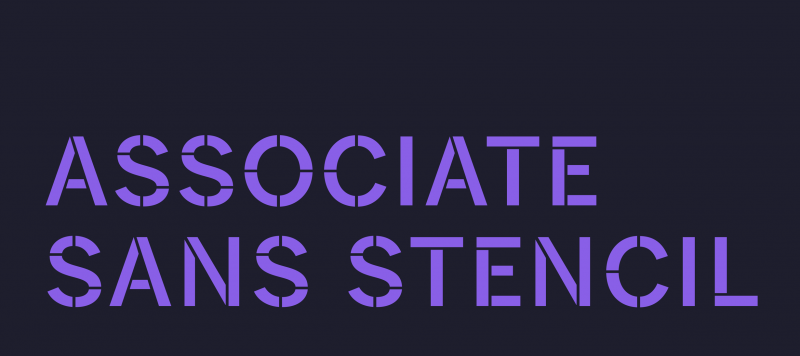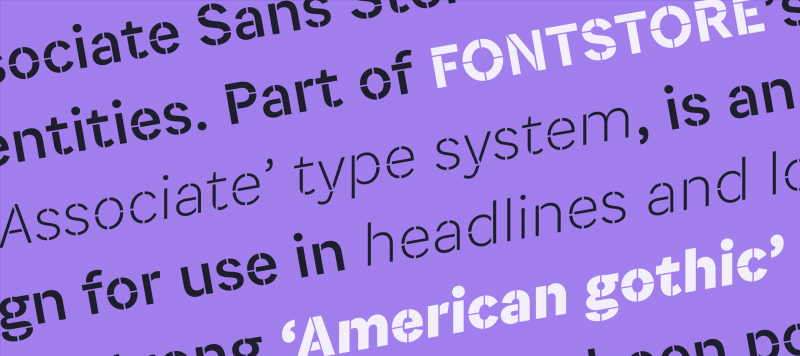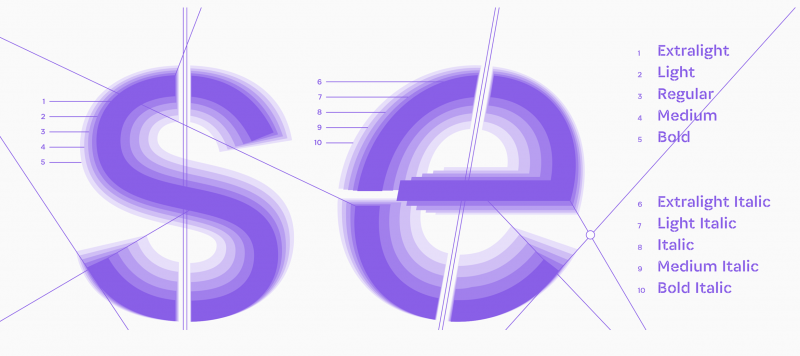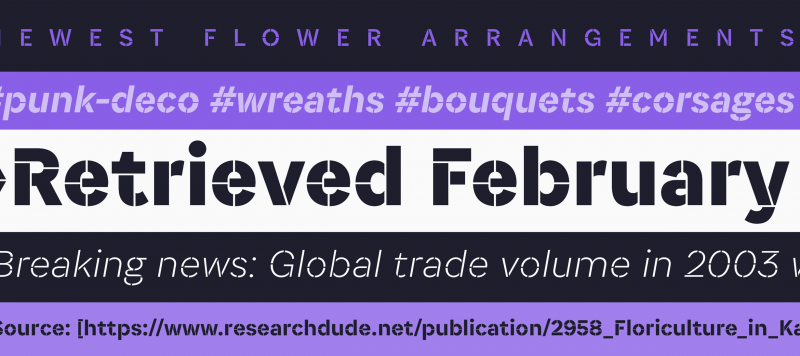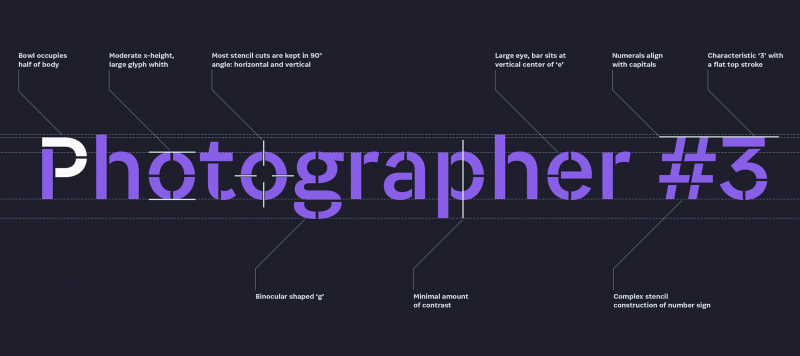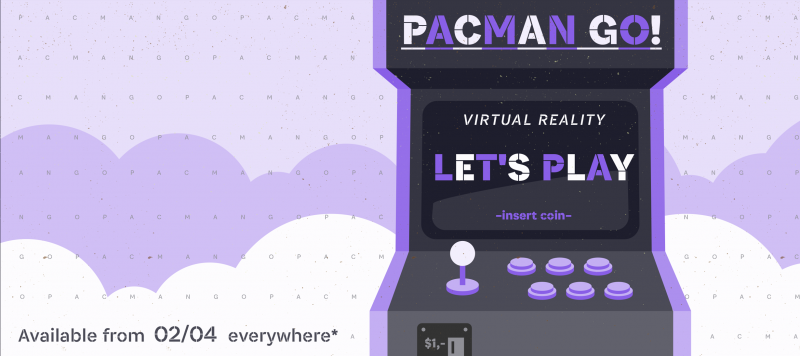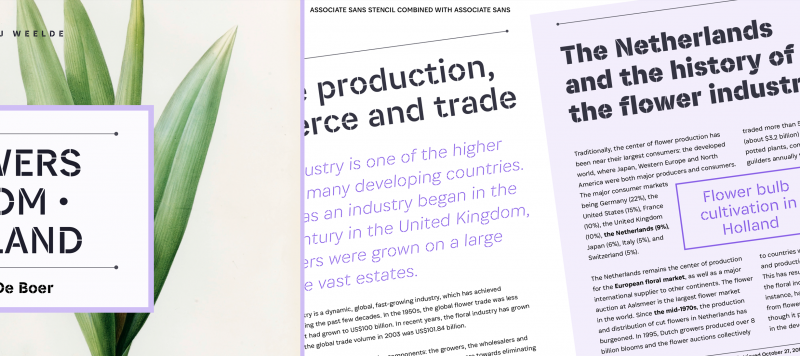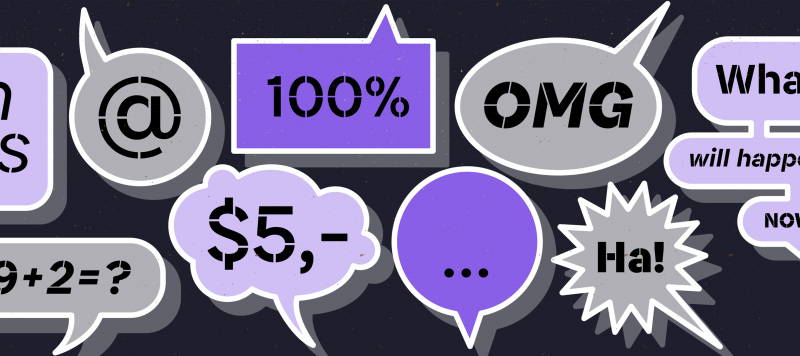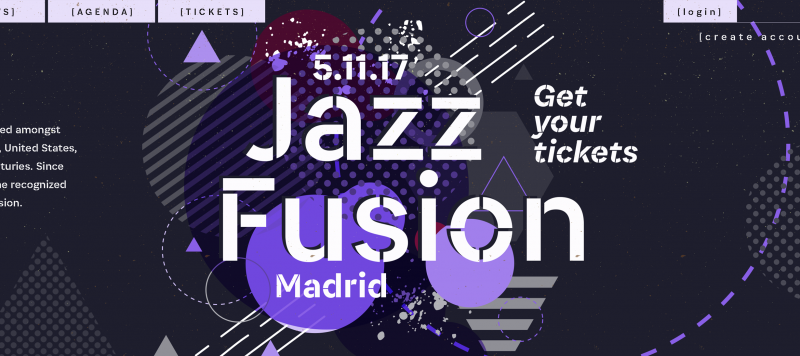
Associate Sans Stencil is a family of ten sans serif fonts with a stencil optic. Part of FontStore’s larger ‘Associate’ type system, Associate Sans Stencil is an extension of the Associate Sans design for use in headlines and logos. The letterforms in both Associate Sans and Associate Sans Stencil have a strong ‘American gothic’ look. That genre of typefaces has been popular since the early 20th-century, especially for designing publications and corporate identities. The Associate Sans Stencil letters are generally monolinear. The ‘stencil’ optic that the characters all have comes from breaks, or ‘bridges,’ applied to parts of each letter. If you were to create real stencils from these fonts, those would be necessary elements for maintaining each letterform’s stability. Associate Sans Stencil’s bridge-elements are not that wide, however. They do not detract from their underlying characters. Each of the family’s five weights – from ExtraLight through Bold – has a companion italic font available. These italic fonts are ‘obliques;’ they differentiate texts set in them by their slant. On FontStore, you can find all of the other font families from the Associate Type System, too, including Associate Slab, Associate Slab Stencil, and even Associate Sans Mono.
Associate Sans Stencil is designed by Jérémie Hornus and Alisa Nowak.
Family Name Associate Sans Stencil
Designer(s) Alisa Nowak, Jérémie Hornus
Classification Display, Sans